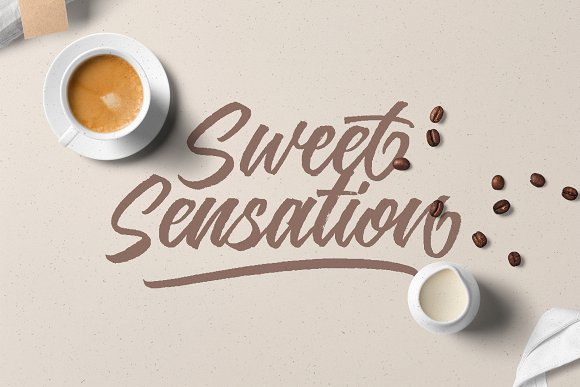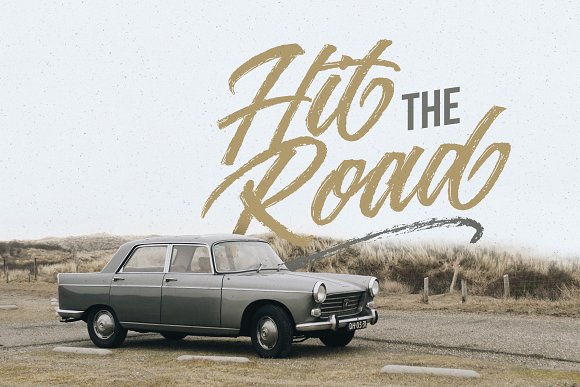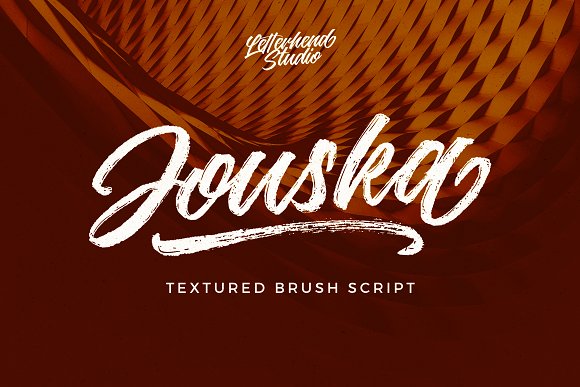
Jouska Brush
Jouska Brush Font
Introducing Jouska Textured Brush Script, a typeface which beautifully brushed manually by hand. The texture gives a gritty and grunge look yet the script style gives a natural and casual feel. Perfect combination to use for any design needs such as logotype / wordmark, badge, sign board, poster, headline text, apparel, wedding invitation, etc.